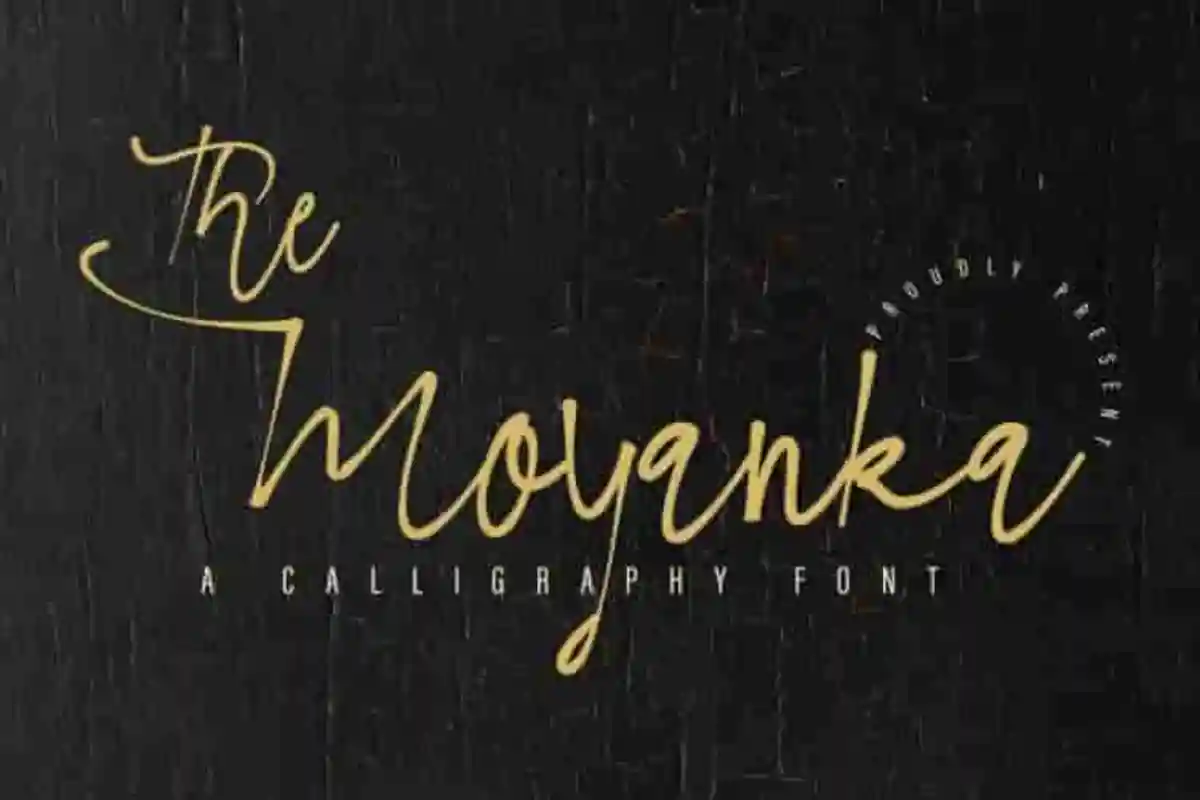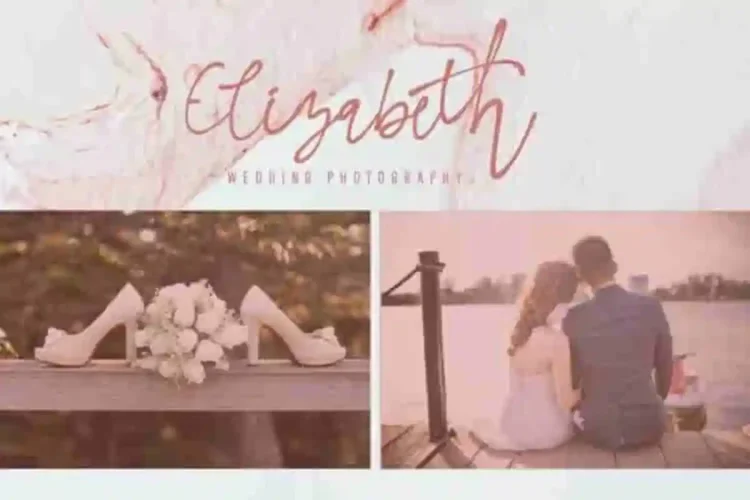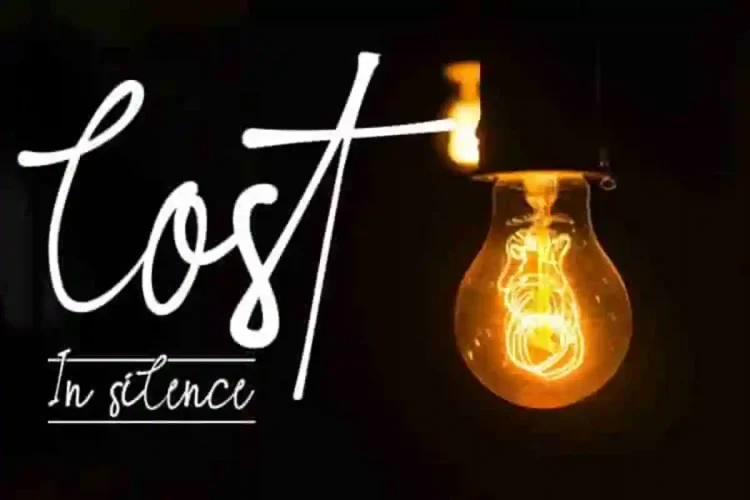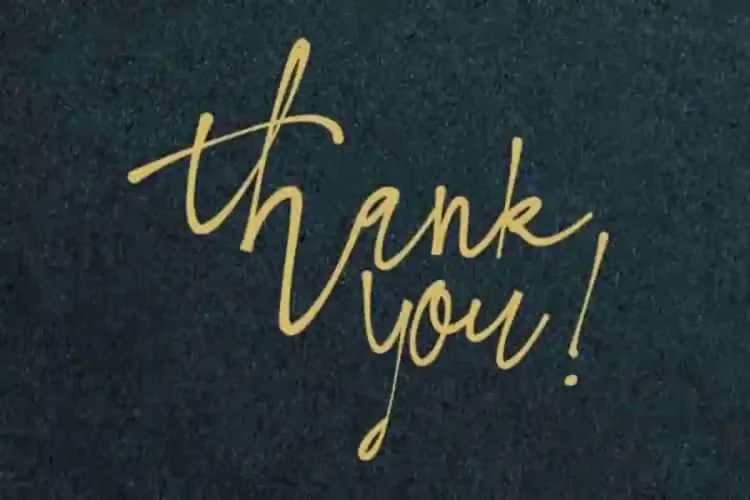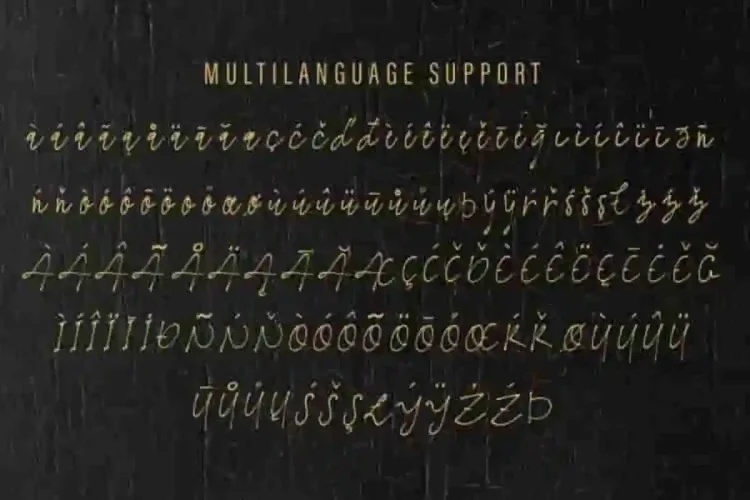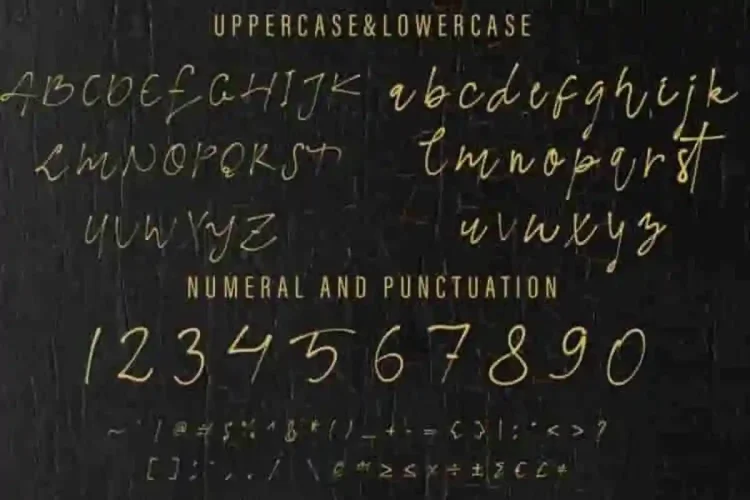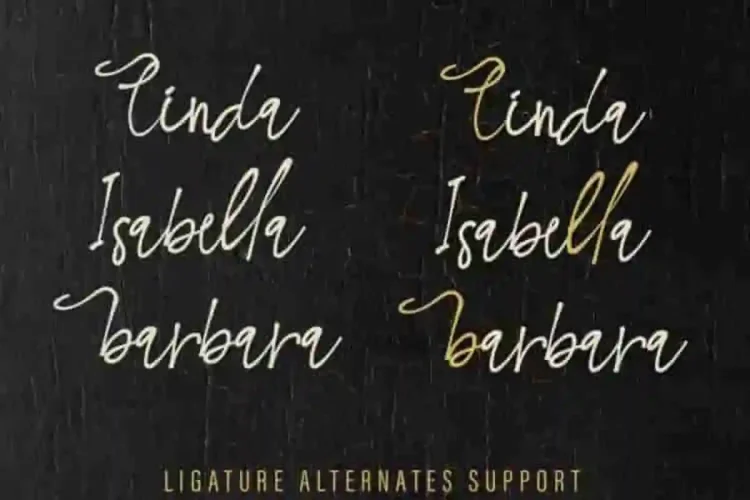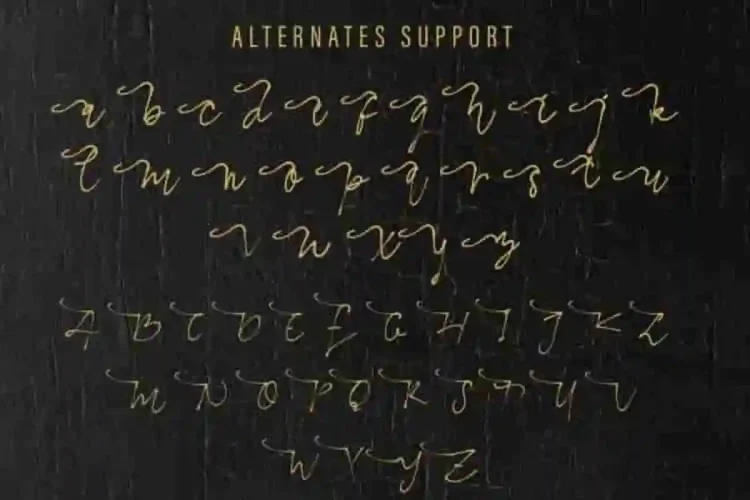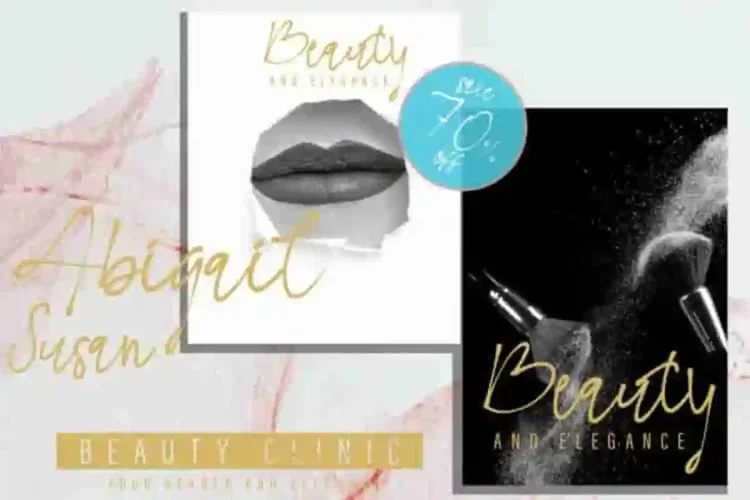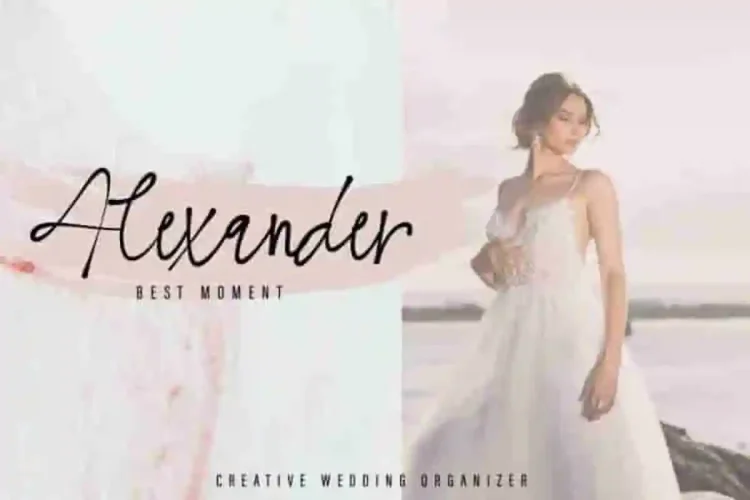
The Moyanka Calligraphy Font
Our latest font  : The Moyanka Calligraphy Font
This is a Calligraphy font, handcrafted from our Studio here in, Indonesia. The artists/designers of this beautiful tyeface is Yasri and Sarah Suci.
The Moyanka Calligraphy Font is an exclusive calligraphy script typeface with brush style. This font has a stunning characters set, perfectly managed with well spaced and kerning.
The Moyanka Calligraphy Font will be great for any projects including : branding, logo, stationery, business card, signage, flyer, brochure etc. Almost all industries will be match for this typeface: wedding, events, real estate, architect, law firm, florist, gardening, makeup artist, travel, hotel, musician etc.